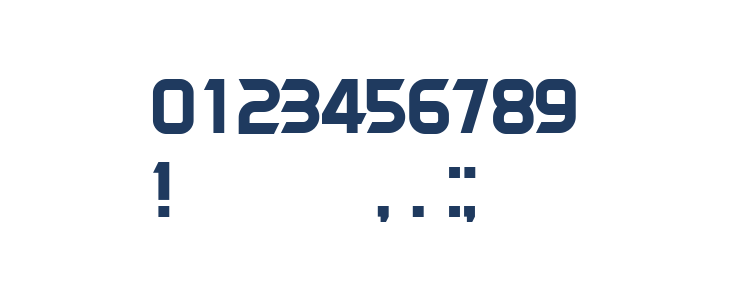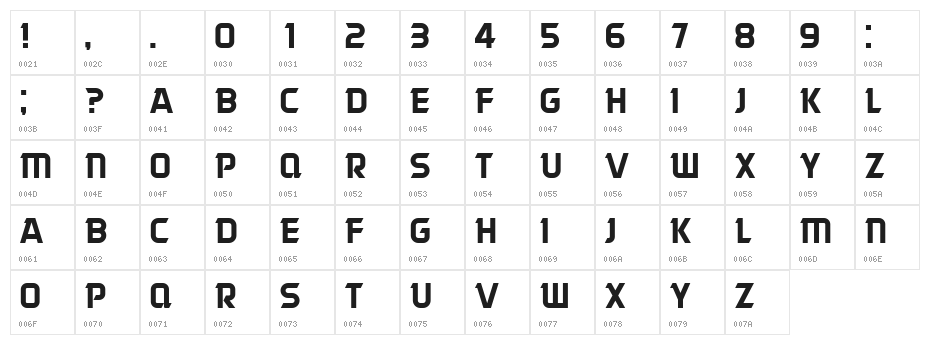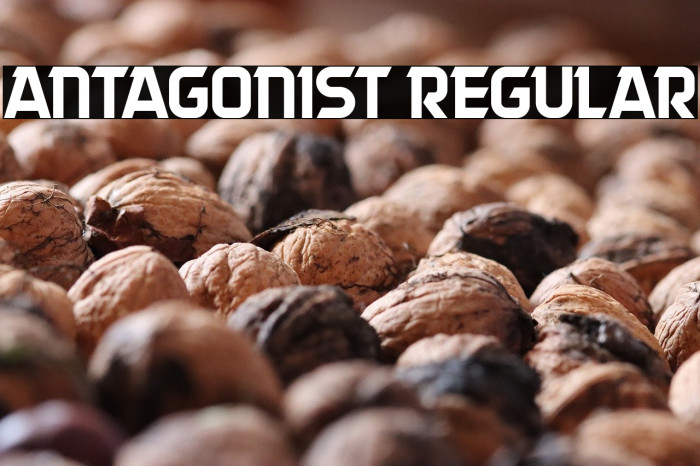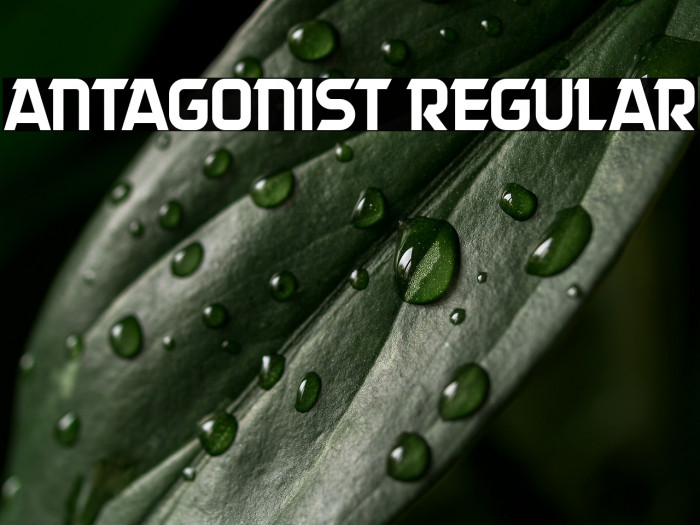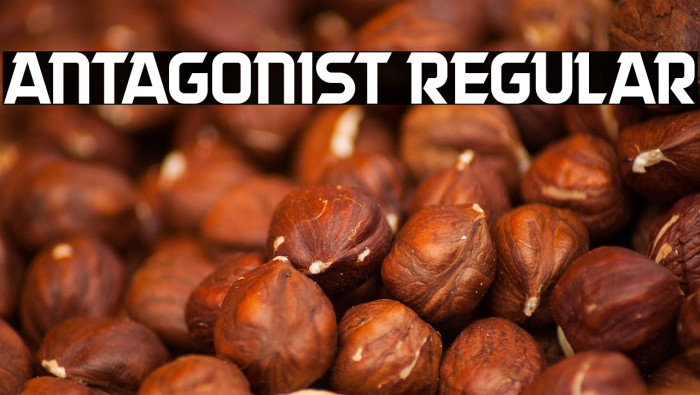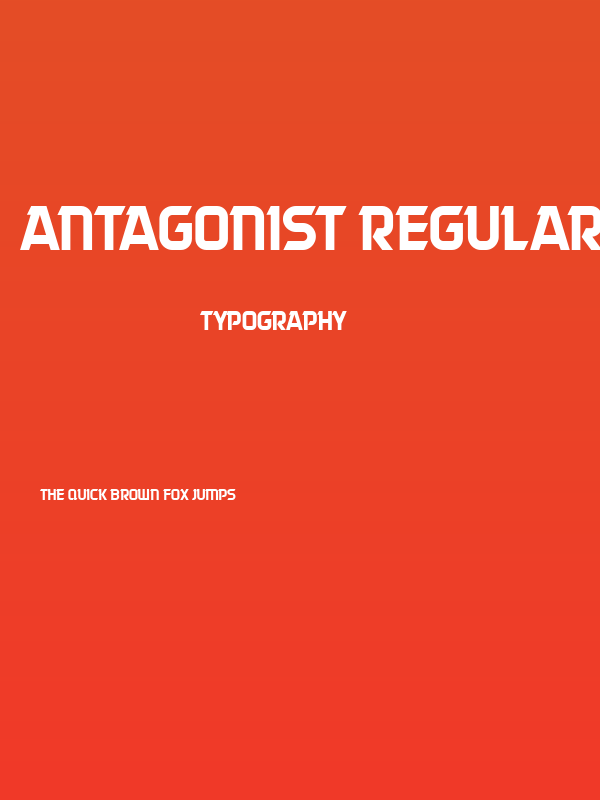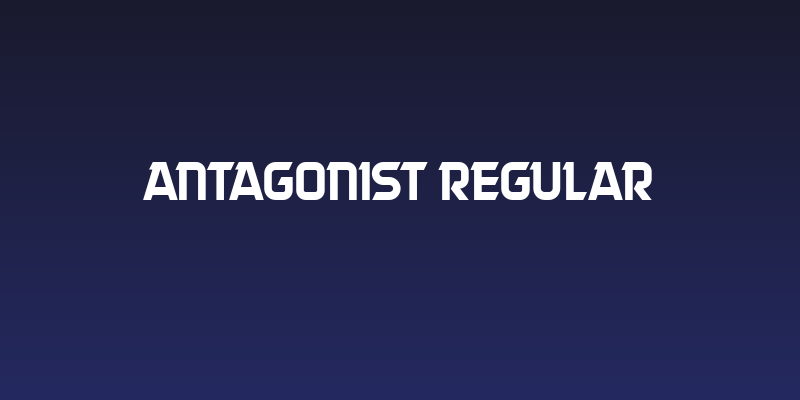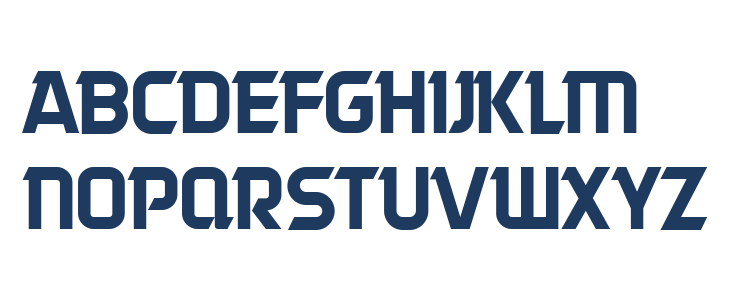
Antagonist Regular Font
Antagonist Regular Description
This font features a bold and futuristic design with angular and geometric shapes. The characters have a strong presence, with sharp edges and a slightly condensed form. The uppercase and lowercase letters maintain a consistent style, emphasizing a modern and sleek aesthetic. The numbers and special characters follow the same design principles, ensuring uniformity across all glyphs. This font is ideal for projects that require a contemporary and assertive look, such as technology branding, video game titles, or sci-fi themed designs.
| Proposed Projects | Ideal for technology branding, video game titles, sci-fi themes, and modern advertising. |